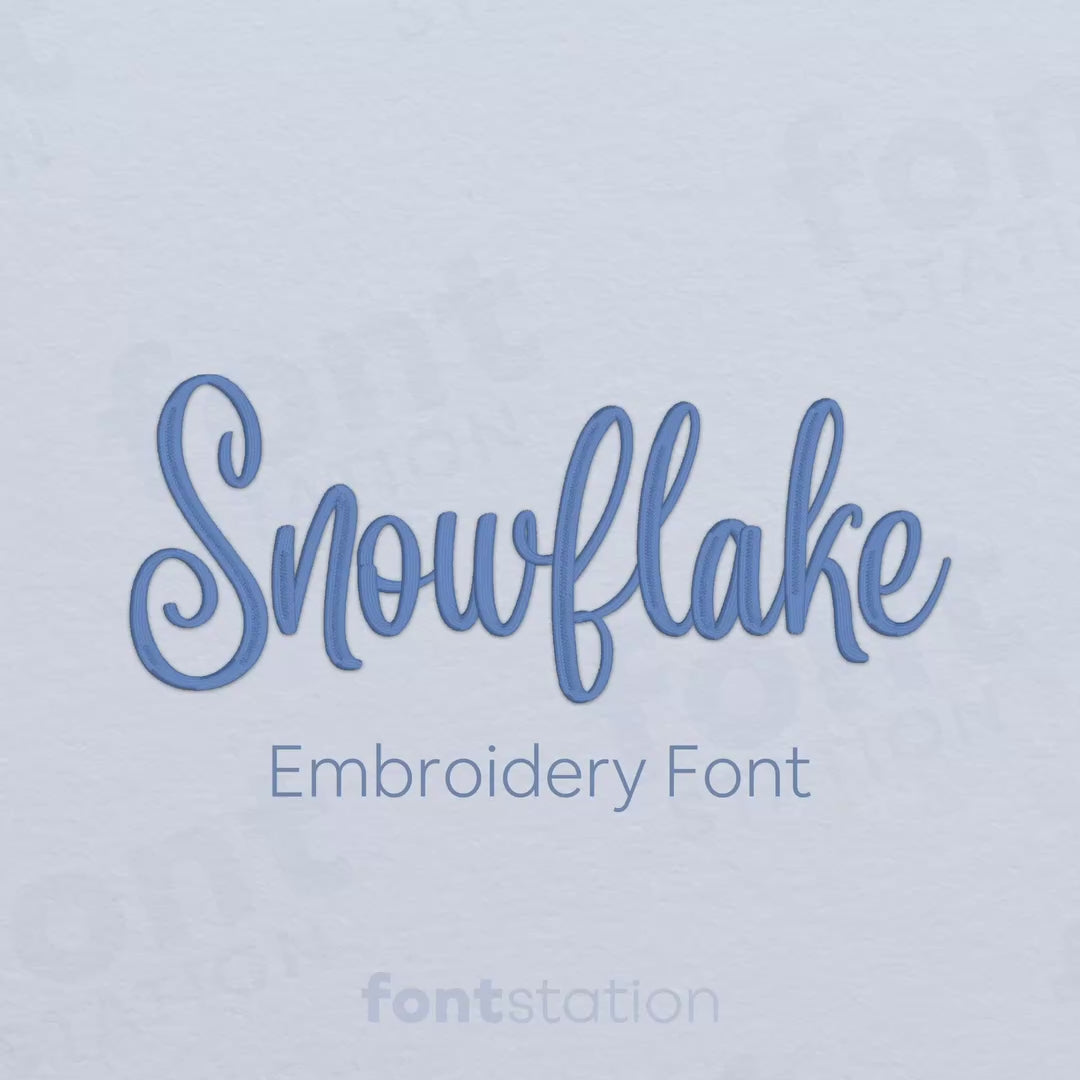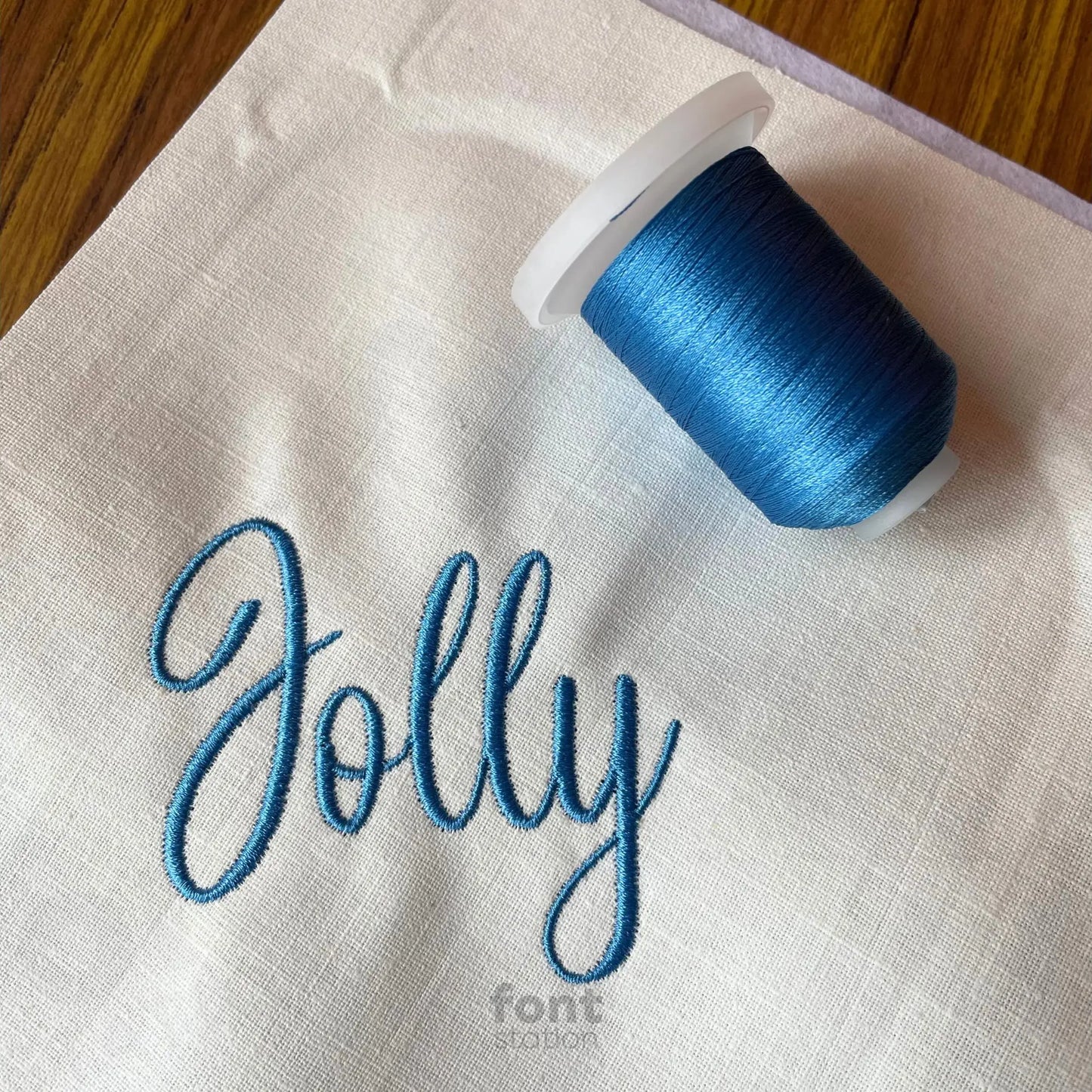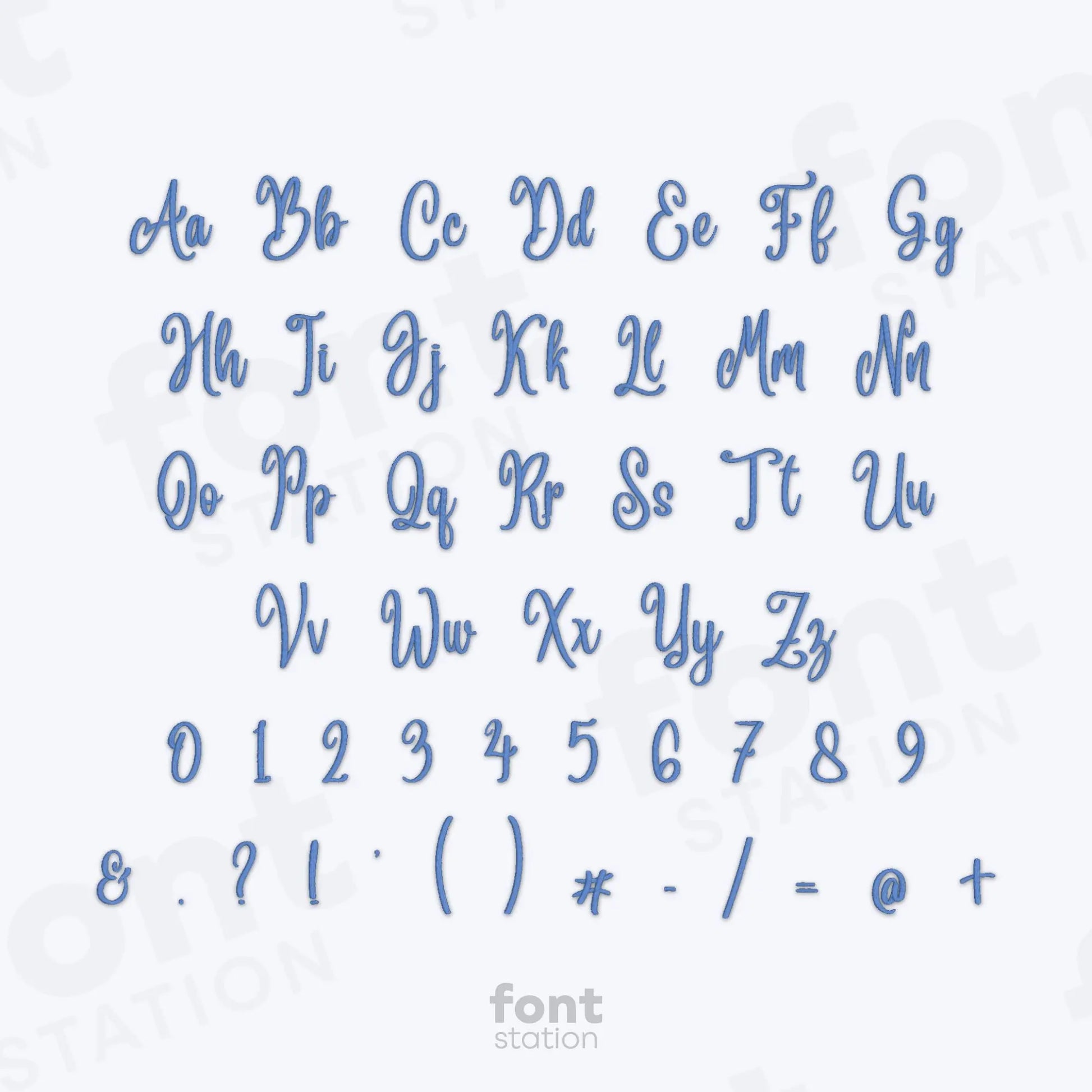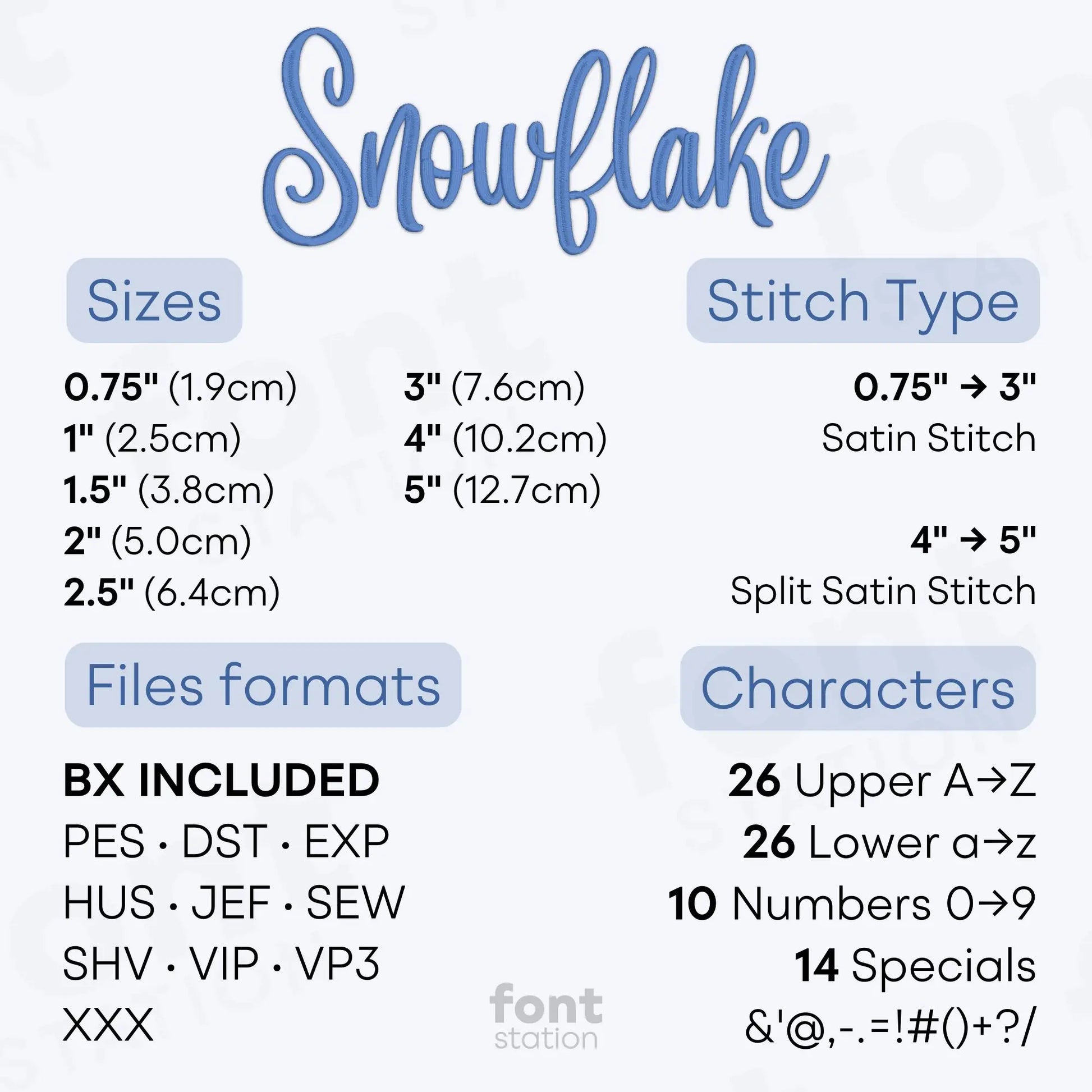
Snowflake Embroidery Font
Introducing our Snowflake embroidery font, a Christmas cursive alphabet with elegant letters that stitch beautifully on your embroidery machine. Perfect for winter holiday designs and any festive project.
About the Snowflake Embroidery Font
Our Snowflake embroidery font brings a festive Christmas cursive style to your winter holiday embroidery projects.
This elegant machine embroidery font features a flowing Christmas cursive alphabet with delicate, script-style letters, perfect for holiday gifts, custom stockings, ornaments, baby outfits, and cozy winter designs. Its graceful curves and snowy charm add a magical touch to every seasonal project.
Why choose our Christmas Embroidery Letters?
How to use this Christmas Embroidery Alphabet?
Unlimited ways to use our Snowflake Embroidery Font